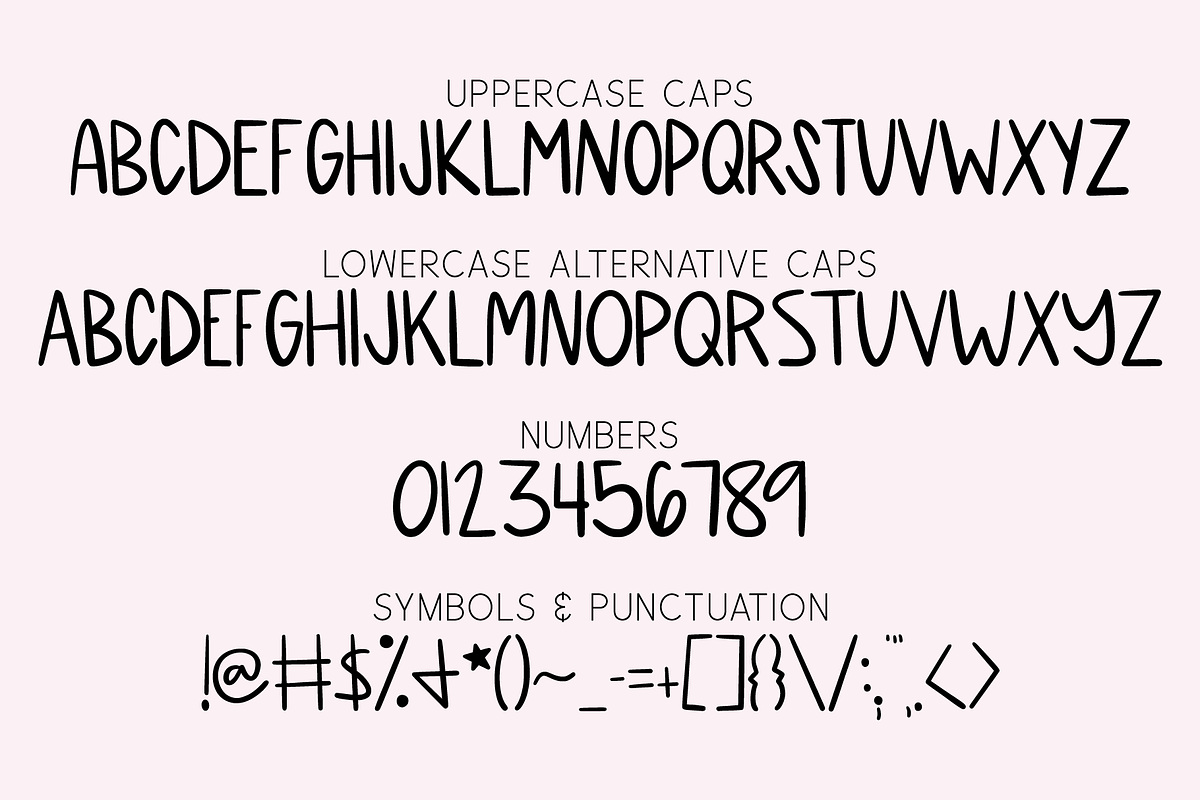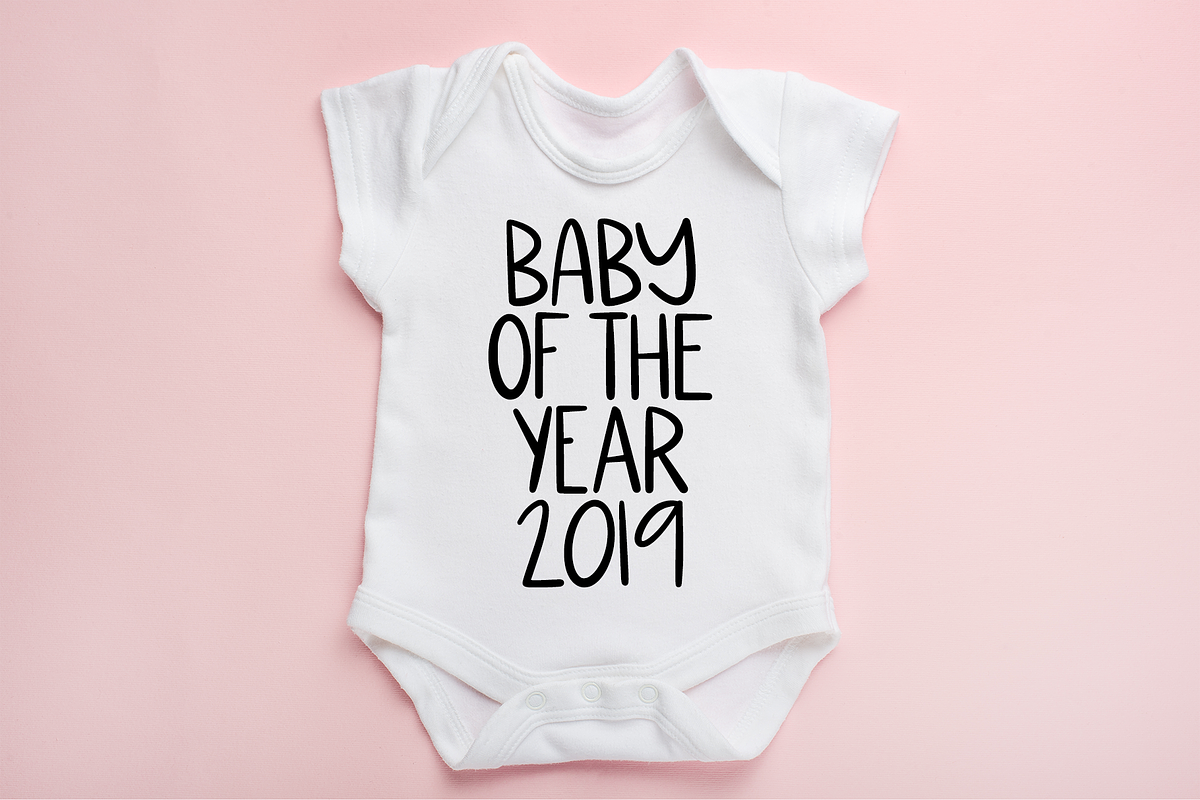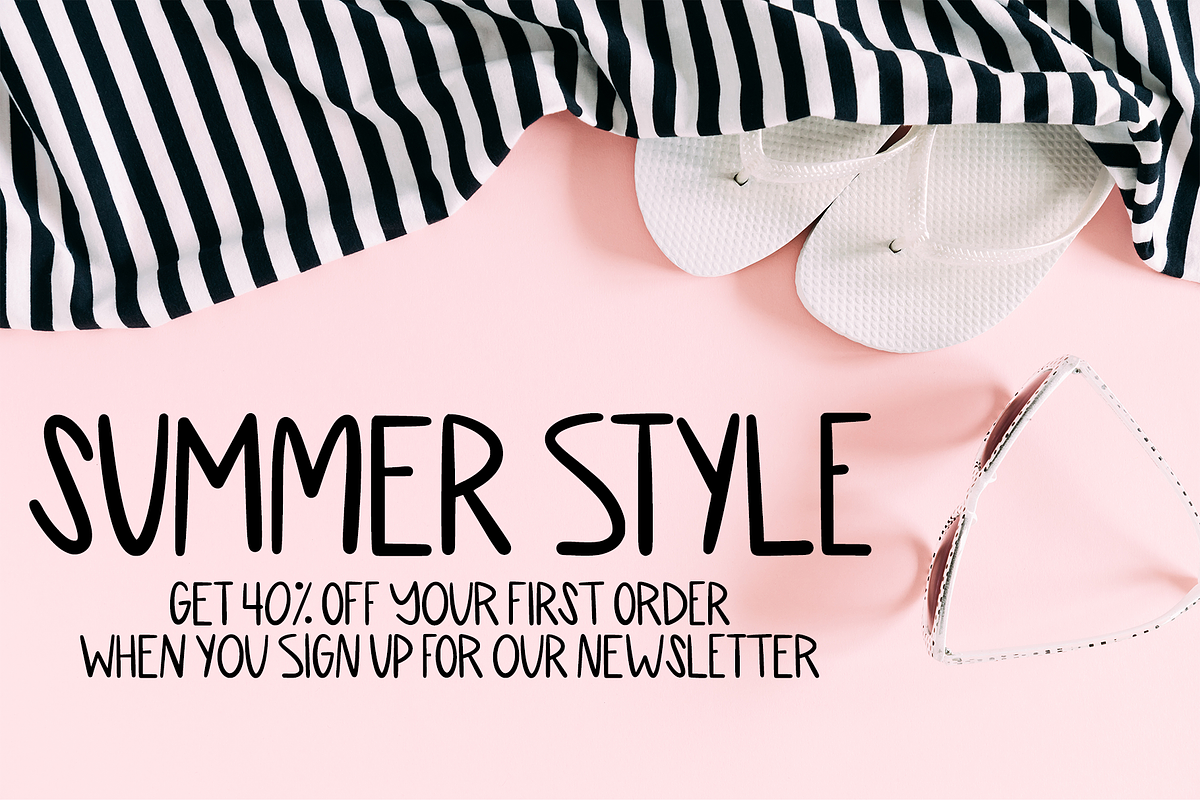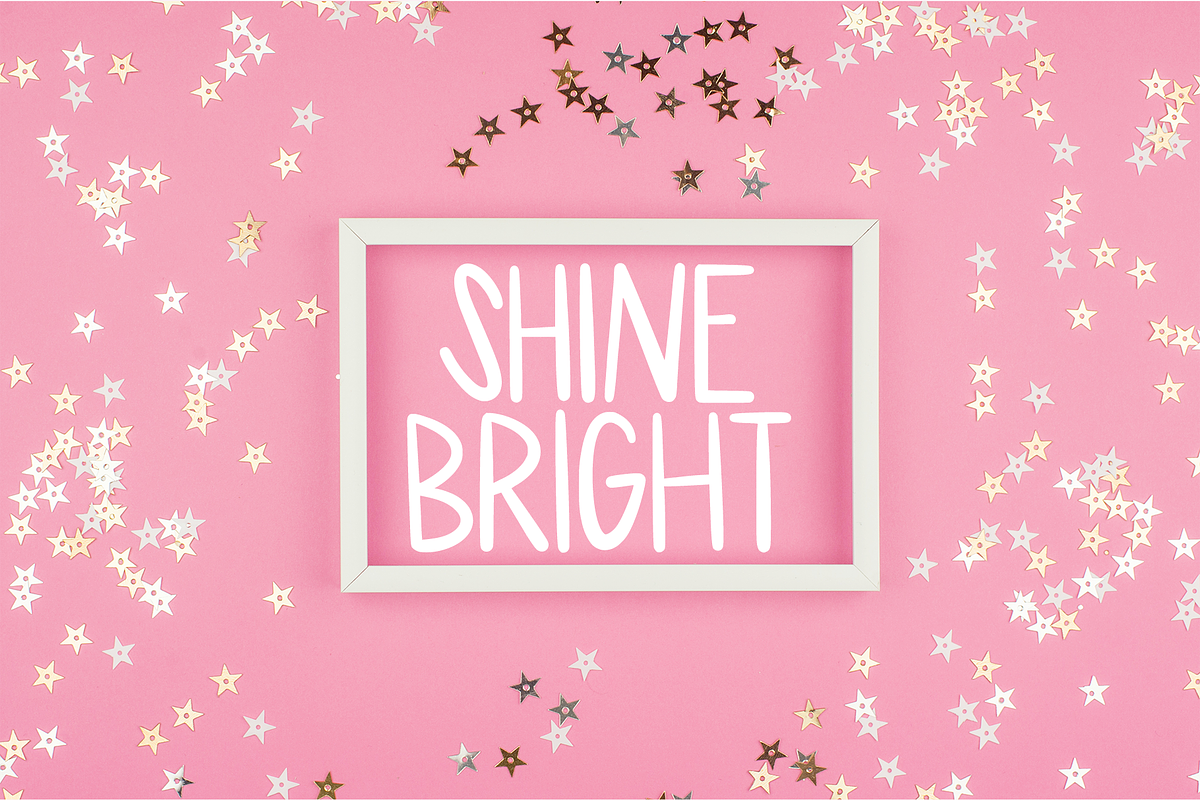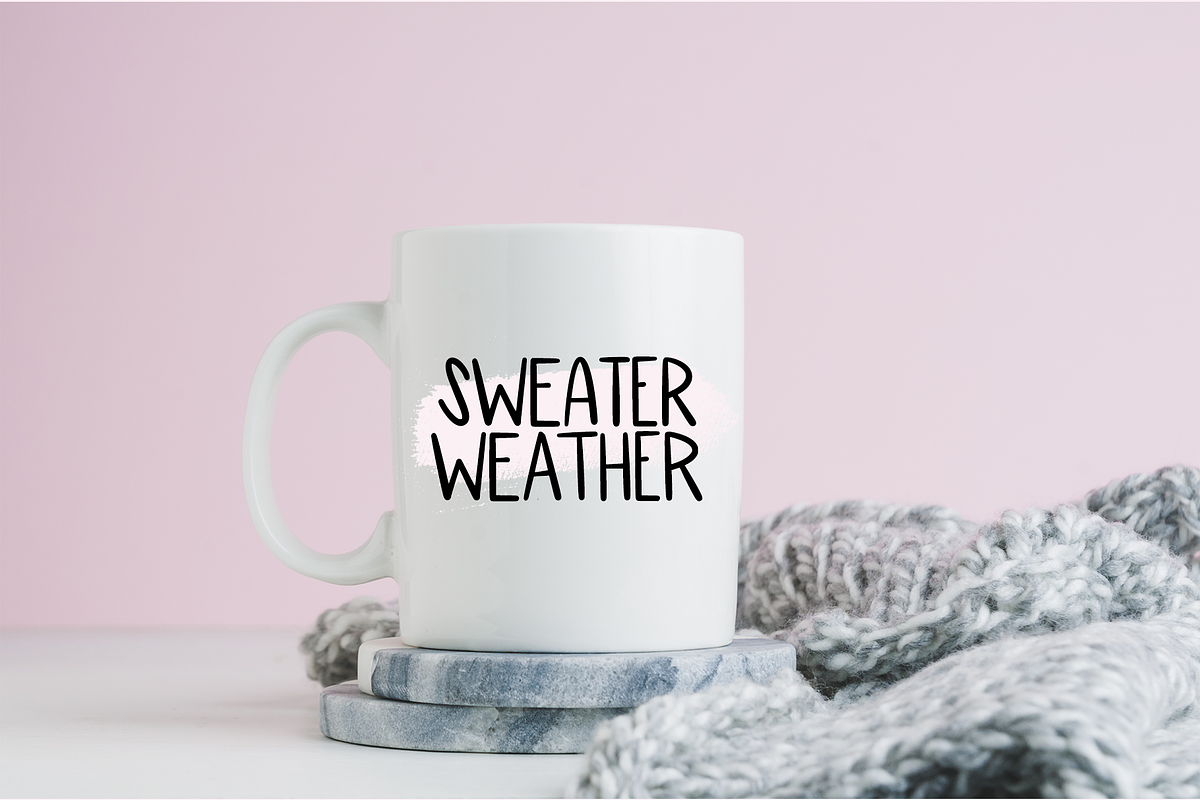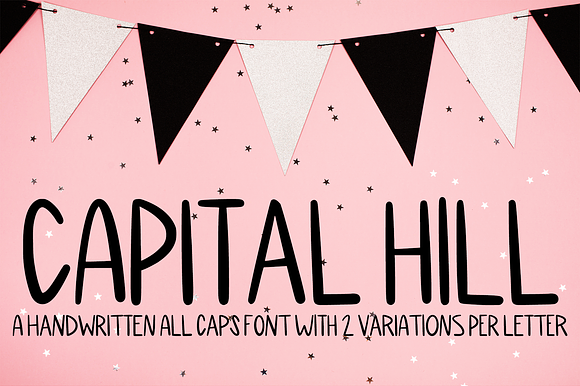
Capital Hill - Handwritten Caps Font
Introducing Capital Hill! A fun handwritten all caps font featuring 2 variations for each letter
Capital Hill has a genuine handwritten feel. Created using Procreate on the iPad, every single element is hand lettered.
For best results, alternate between switching caps lock on and off for a genuine handwritten look!
Capital Hill is a great font to use for all sorts of projects -- from graphic design, to physical products! The possibilities are endless.